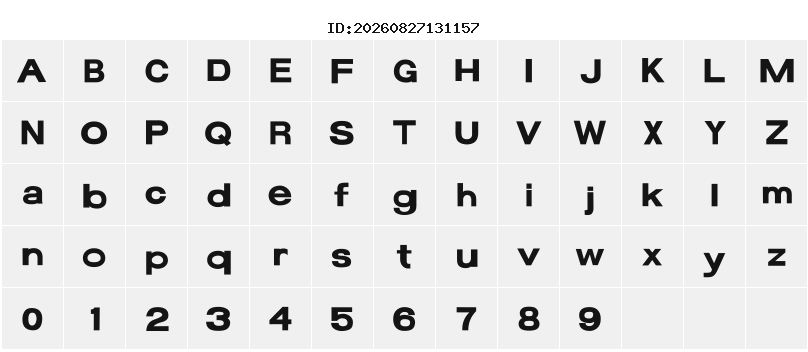
• Font Name: 17B-Fun
• Designer: Daniel Lyons
• Description: A very, goofy, headline and whimsical font for you to use for your projects.
About 17B-Fun.ttf
17B-Fun.ttf is a modern, elegant sans-serif font designed for ultimate readability and visual harmony. Perfect for branding, headlines, web design, and print materials.